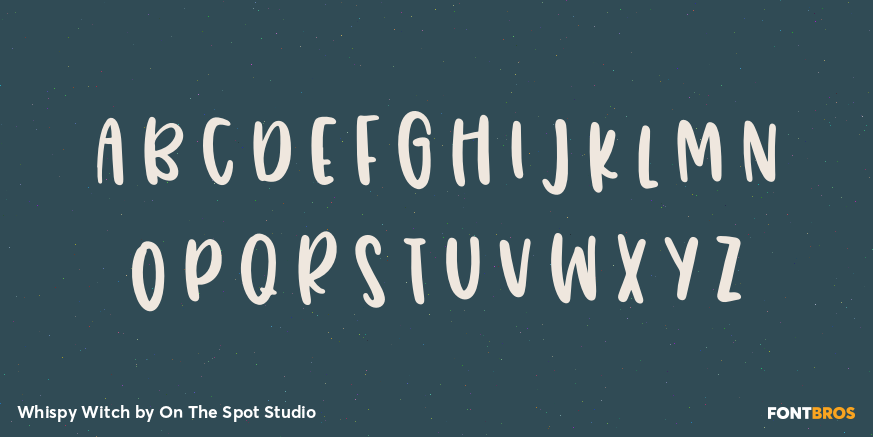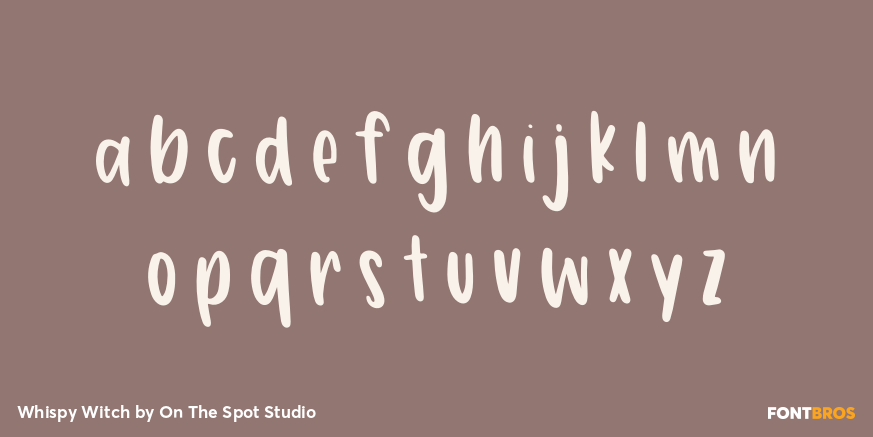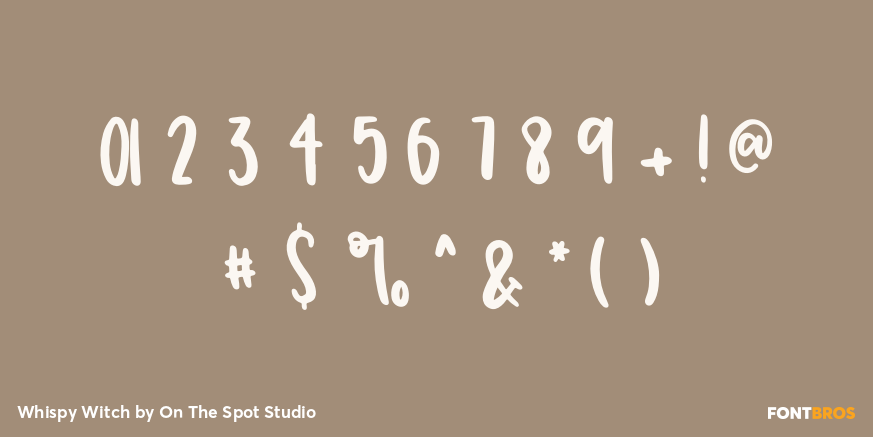
Whispy Witch
Whispy Witch is a playful handwritten display style with a casual, friendly feel. Its rounded forms, smooth rhythm, and tall x-height give it an easygoing look that feels modern, whimsical, and a little quirky without losing readability.
With its informal personality, this single regular style is well suited to fun branding, social graphics, packaging, posters, crafts, and other decorative display work that calls for a light, approachable voice. It’s an especially appealing choice when you want lettering that feels hand-drawn, cheerful, and full of character.
Created by On The Spot Studio, this font brings together playful energy and smooth handwritten charm in a clean, easy-to-use format.